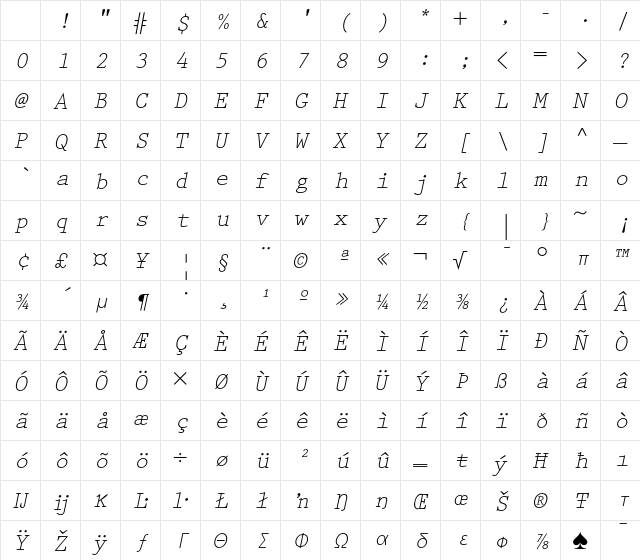
Complete Prestige Elite Slanted glyph index. Displaying only characters natively supported by Prestige Elite Slanted font.
Prestige Elite is a composed and adaptable typeface that performs quietly and consistently across a wide range of design contexts. The slanted form adds forward momentum and visual energy.